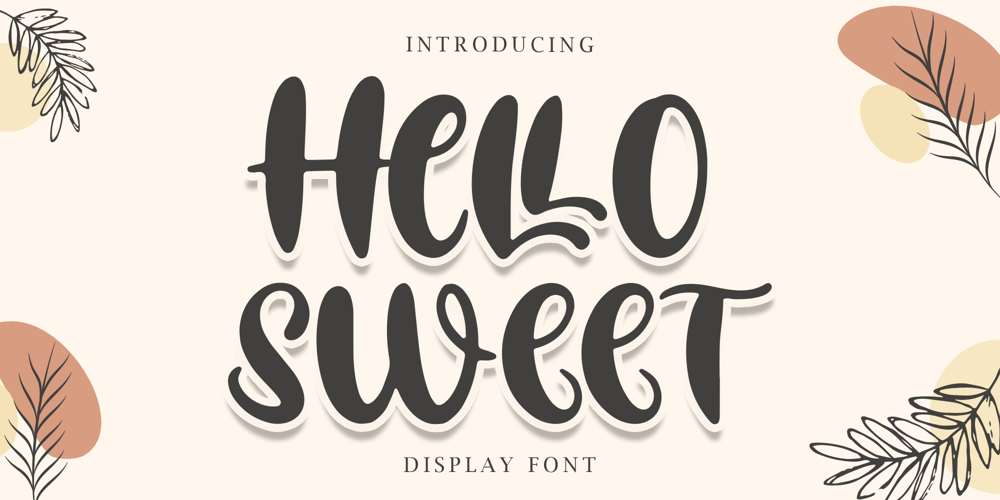
Hello Sweet
Hello Sweet font
Hello Sweet Font Family was designed by Alif Ryan Zulfikar and published by Sakha Design. Hello Sweet contains 2 styles and family package options. Hello Sweet is a trendy and fun display font. It is great for delivering any message with confidence, authenticity and charm. Use it for cartoons, magazine covers, games or pretty much anything that requires a jolly touch.